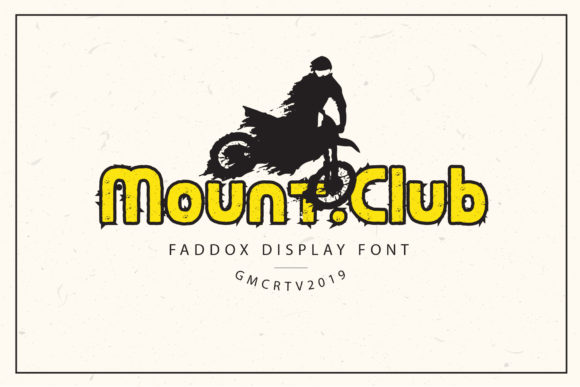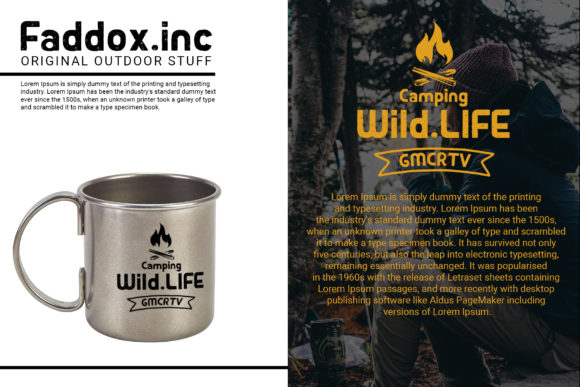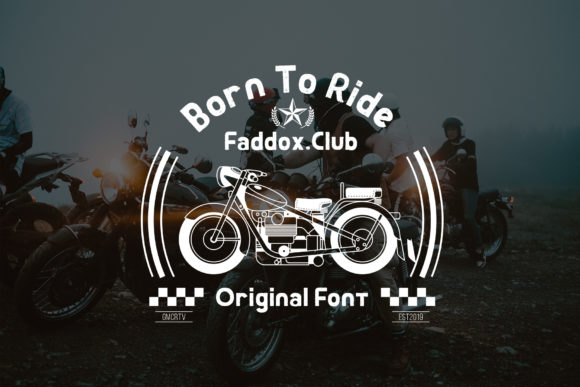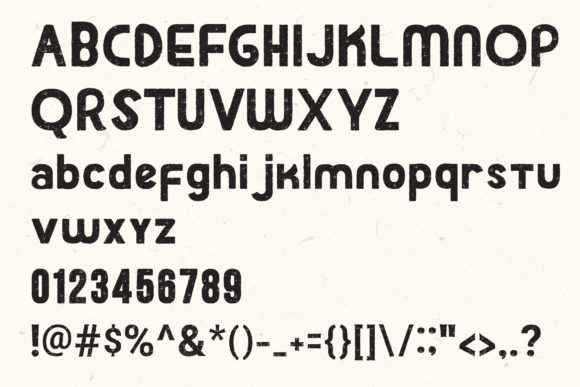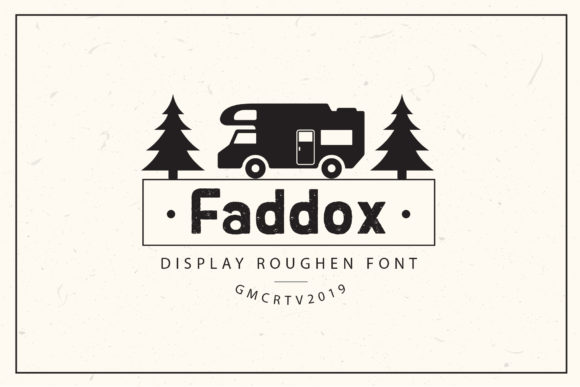
Faddox Font: Elevate Your Designs with a Powerful Retro Look
In the world of typography, fonts play a crucial role in conveying the tone and aesthetic of a design. For designers and crafters looking to add a touch of nostalgia and sophistication to their work, the Faddox Font is an excellent choice. This sans serif font is inspired by vintage motorbike posters, exuding a strong and powerful look that’s perfect for a variety of design applications.
The Inspiration Behind Faddox Font
The Faddox Font draws its inspiration from the classic motorbike posters of the past. These posters, often characterized by bold typography and striking imagery, were designed to capture the attention of enthusiasts and convey a sense of freedom and adventure. The Faddox Font distills the essence of these vintage posters into a modern, sans serif typeface that’s both elegant and rugged.
Key Features of Faddox Font
- Sophisticated Design: The Faddox Font boasts a sleek, sans serif design that’s perfect for creating a professional and polished look.
- Retro Inspiration: Its vintage motorbike poster inspiration gives the font a unique, nostalgic feel that’s sure to evoke a sense of classic style.
- Versatility: The Faddox Font is suitable for a wide range of design applications, from branding and advertising to packaging and digital media.
- Legibility: The font’s clear, sans serif lines ensure excellent legibility, making it perfect for use in both print and digital formats.
Use Cases for Faddox Font
The Faddox Font’s versatility makes it an excellent choice for various design projects. Here are some use cases where the font can make a significant impact:
- Branding and Logo Design: Use the Faddox Font to create a bold, memorable logo that captures the essence of your brand.
- Advertising and Marketing Materials: The font’s retro vibe and sophisticated design make it perfect for creating eye-catching ads, brochures, and flyers.
- Packaging Design: Add a touch of nostalgia to your product packaging with the Faddox Font, making your products stand out on store shelves.
- Digital Media: The font’s clean design ensures excellent readability on digital platforms, making it suitable for use in website headers, social media graphics, and more.
Tips for Using Faddox Font Effectively
To get the most out of the Faddox Font, consider the following tips:
- Pair with Contrasting Fonts: Combine the Faddox Font with contrasting fonts to create visual interest and hierarchy in your designs.
- Experiment with Colors: The font’s retro vibe lends itself well to bold, vibrant colors. Experiment with different color schemes to find the perfect fit for your design.
- Use for Headings and Titles: The Faddox Font’s bold design makes it perfect for use in headings and titles, where you want to grab the attention of your audience.
The Faddox Font is a powerful tool for designers and crafters looking to add a touch of nostalgia and sophistication to their work. Its unique blend of retro inspiration and modern design makes it perfect for a wide range of applications, from branding and advertising to packaging and digital media. By incorporating the Faddox Font into your design projects, you can create visually striking and memorable designs that leave a lasting impression.
Whether you’re a seasoned designer or just starting out, the Faddox Font is an excellent addition to your typography arsenal. So why not give it a try and see how it can elevate your designs to the next level?